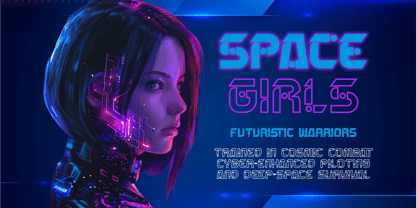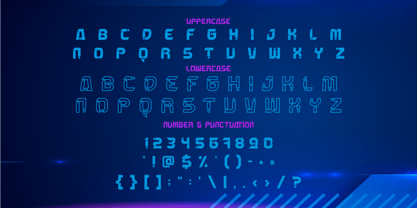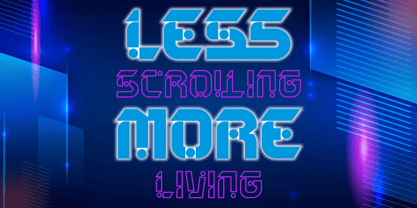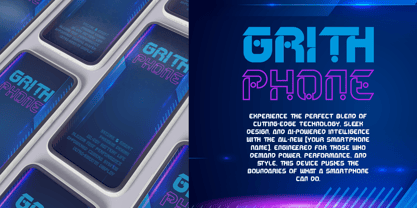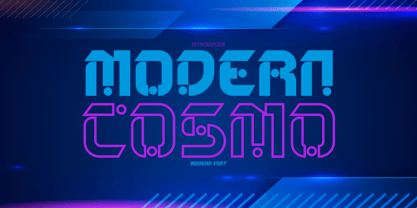
Modern Cosmo
La familia tipográfica Modern Cosmo fue diseñada por Yesie Erma Yunita y publicada por Shanaf. Modern Cosmo contiene 1 estilos. Más información sobre esta familia
Introducing Modern Cosmo - Modern Font, a futuristic and stylish typeface that seamlessly blends modern cyber aesthetics with a sleek sci-fi edge. This font features a bold, geometric, and digital-inspired design with circular cutouts and unique dot placements, giving it a distinctive high-tech and futuristic appeal. The dual-style presentation—one solid and bold while the other is thin and outlined—creates a dynamic contrast, perfect for adding depth and versatility to any design. The electric blue and neon purple color scheme in the preview reinforces its technological and cyberpunk identity, making it an excellent choice for branding, gaming, UI/UX interfaces, and digital marketing. Its sharp angles and smooth curves give it a sleek, modern, and slightly robotic appearance, making it a powerful statement font for sci-fi and tech-driven projects.
Designed for logos, posters, film titles, esports branding, tech startups, and futuristic packaging, Modern Cosmo brings a strong, innovative, and visually engaging presence. The dark cyber-themed background with neon light streaks enhances the font’s sci-fi and high-tech aesthetic, ensuring it stands out in modern web design, gaming titles, and space-themed projects. Whether you're working on digital content, futuristic event branding, or tech-based visuals, this font is built to captivate audiences and elevate your design game. Unlock the future of typography with Modern Cosmo - the ultimate cyber-inspired font.